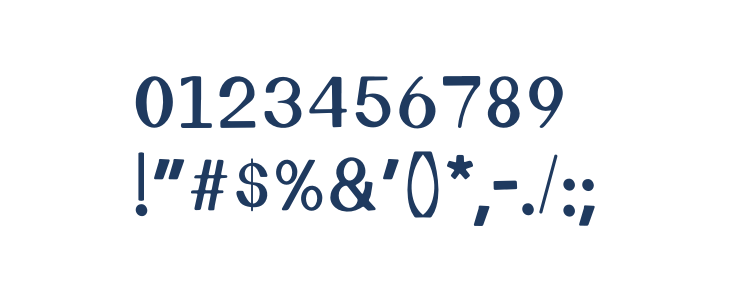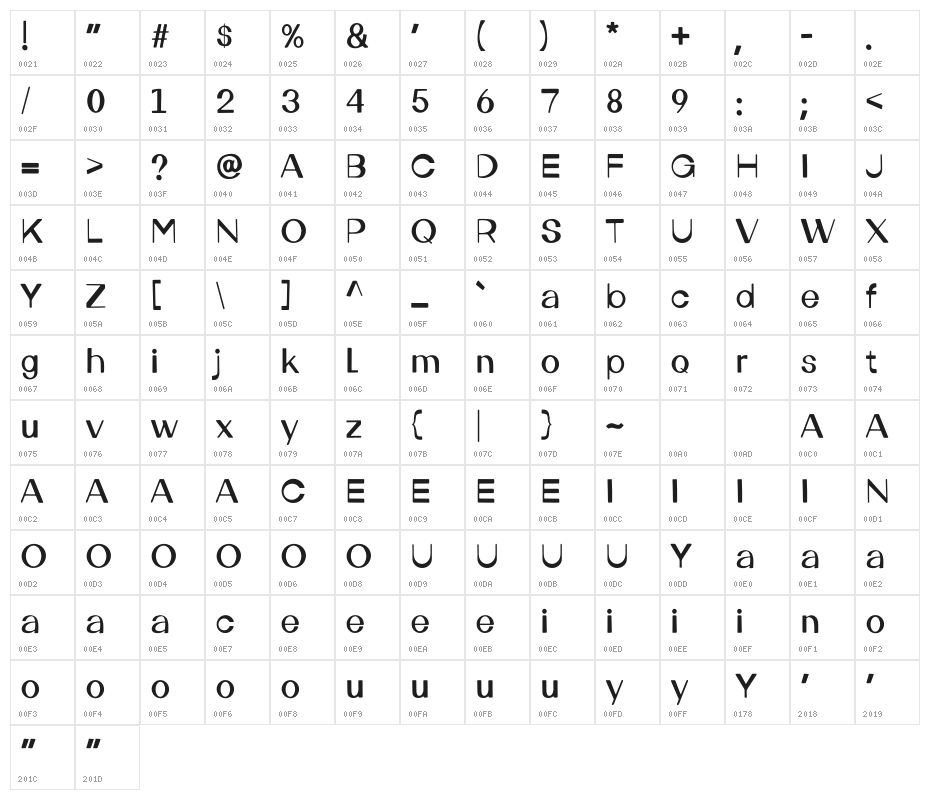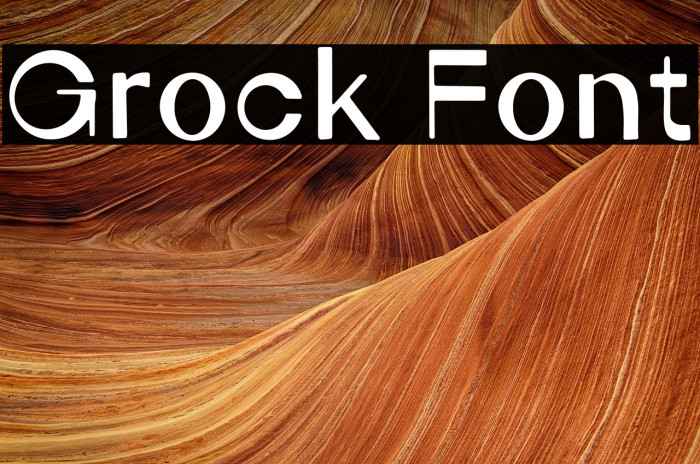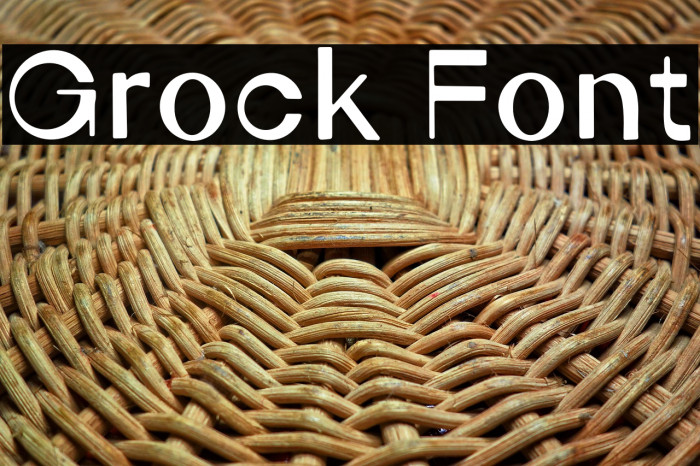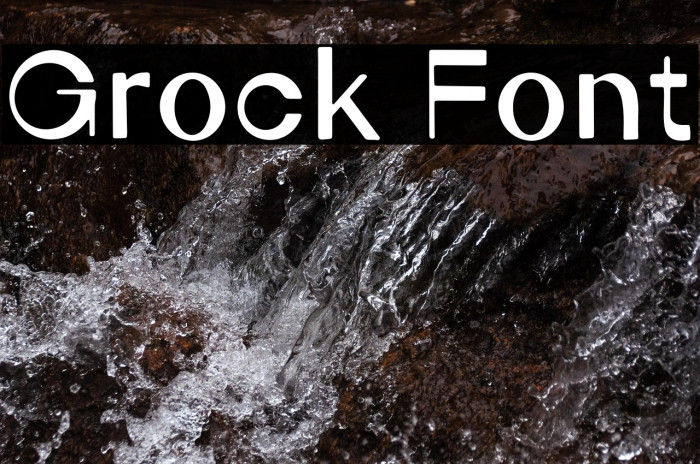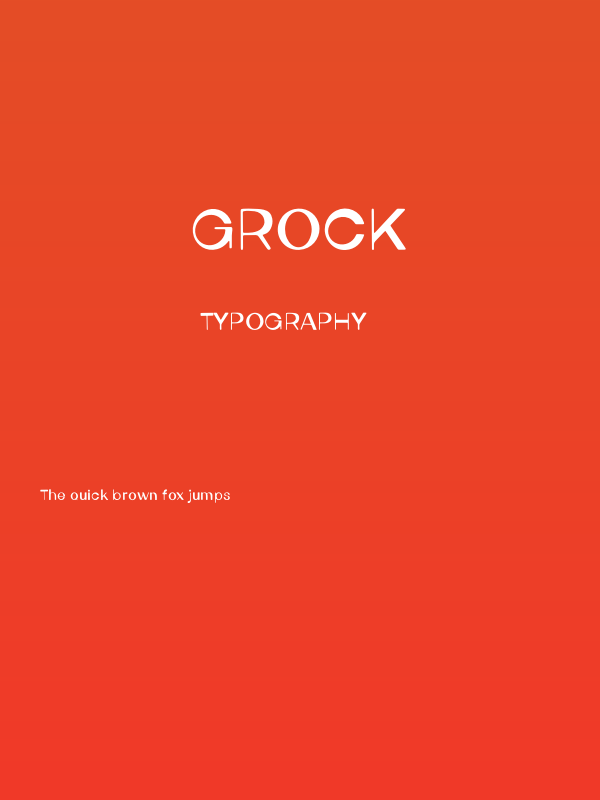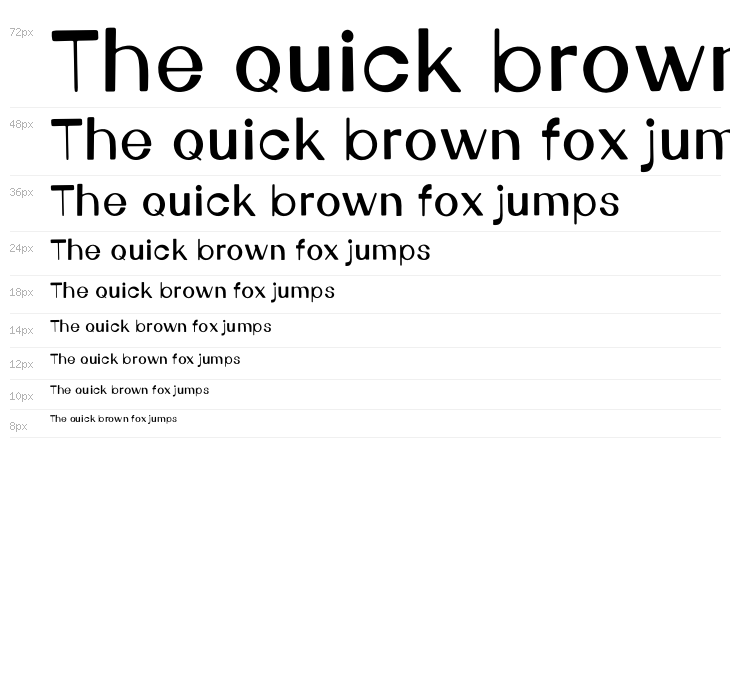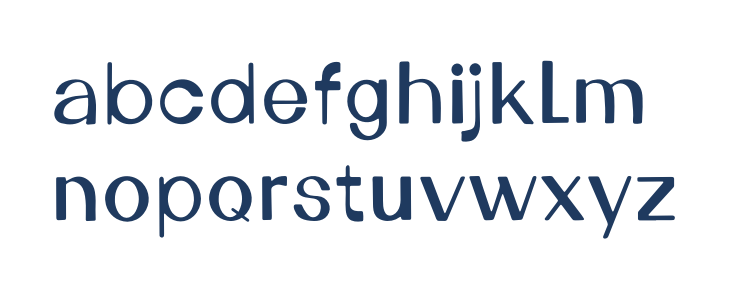
Grock Font
Grock Description
This font features a modern and clean design with a sans-serif style. The uppercase letters are bold and geometric, while the lowercase letters maintain a consistent thickness, offering a balanced appearance. The numerals are straightforward and align well with the overall aesthetic. Special characters are distinct and maintain the font's uniform style. The design is versatile, making it suitable for various applications, from digital to print media. Its clarity and simplicity make it an excellent choice for contemporary design projects.
| Use Case | Headlines, Logos, Digital Media |
| Proposed Projects | Ideal for branding, advertising, web design, and editorial layouts. |